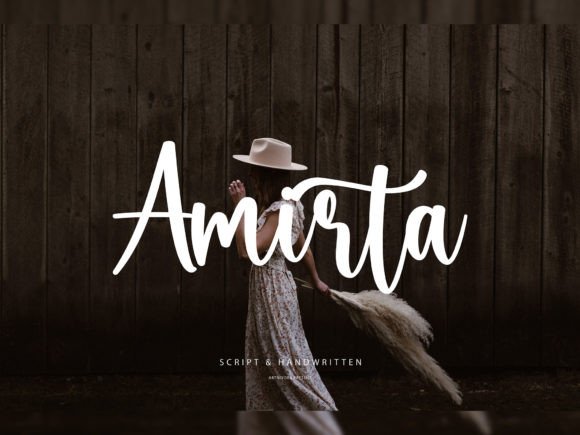
Feast your eyes upon the Amirta Font, a script font that ripples with elegance and charm. This stunning font is the brainchild of artnivora.std, an artist who poured their heart and soul into creating this masterpiece. With its captivating curves and beautiful strokes, the Amirta Font is more than just a font - it's an artistic experience.
Dive into a world of creativity and let the Amirta Font ignite your imagination. Picture the heartfelt words of a wedding invitation, adorned with the graceful strokes of this font, etching the promise of love and joy into the hearts of your guests. Design thank-you cards that exude sincerity, each letter a testament to your gratitude, penned with the elegance of the Amirta Font.
Step into the realm of design and let the Amirta Font elevate your projects to new heights. Craft logos that radiate sophistication, embodying the essence of your brand with a touch of artistic flair. Create business cards that leave a lasting impression, transforming every interaction into an unforgettable encounter. Unleash your creativity with quotes and greeting cards, letting the Amirta Font dance across the page, conveying emotions with every stroke.
With the Amirta Font, you're not just downloading a font - you're embarking on a journey of artistic expression. It's the perfect companion for designers, crafters, and anyone who seeks to infuse their work with a touch of timeless beauty. Let the Amirta Font be your muse, guiding you toward creations that captivate and inspire.
Don't settle for ordinary; embrace the artistry of the Amirta Font and let your creativity soar. Its versatility knows no bounds, effortlessly adapting to a symphony of design projects. Whether you're crafting wedding invitations, designing logos, or creating heartfelt cards, the Amirta Font is your trusted ally, adding a touch of elegance and sophistication to every stroke.